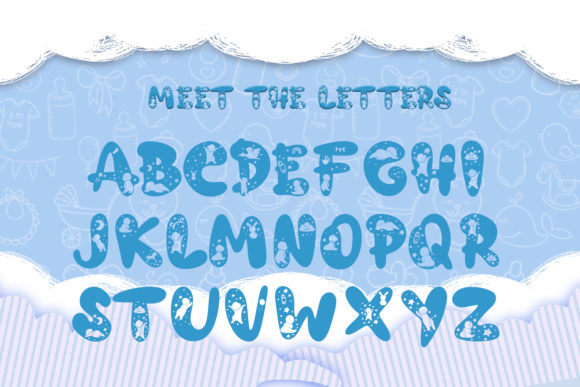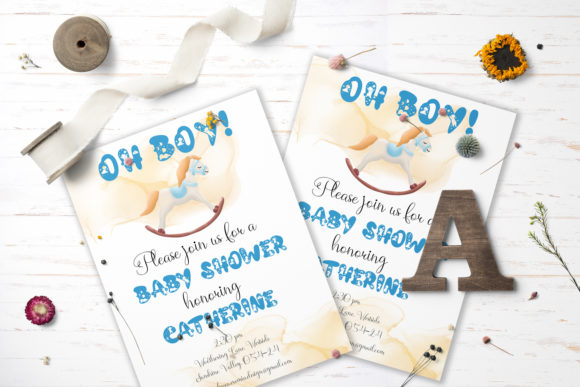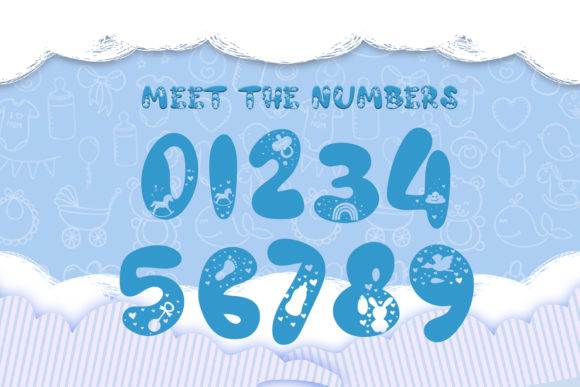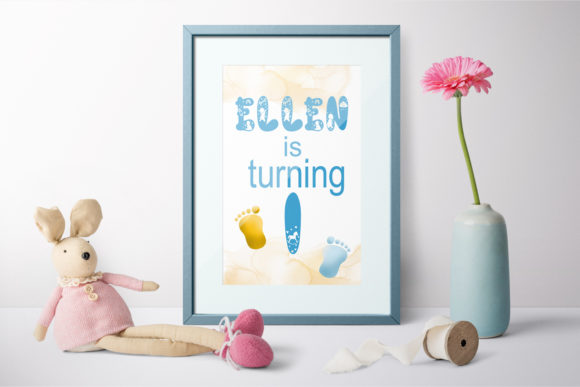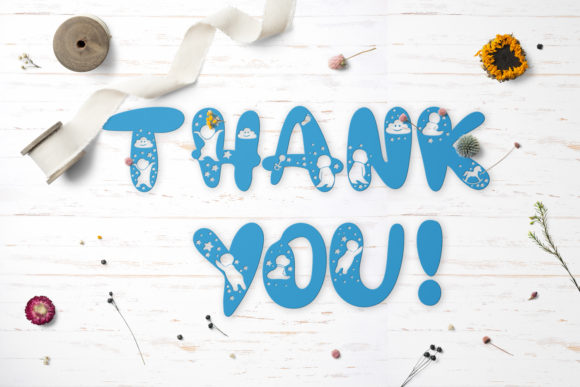
Baby Boy Font: The Perfect Addition to Your Children’s Design Projects
Are you a designer or crafter looking for a font that captures the playful and whimsical spirit of childhood? Look no further than the Baby Boy font! This quirky, sweet, and playful display font is perfect for children’s themed designs, especially when combined with bright colors.
What is Baby Boy Font?
Baby Boy font is a unique and eye-catching display font that is designed to bring a touch of playfulness and fun to your designs. Its quirky and sweet style makes it perfect for a variety of projects, from children’s party invitations and birthday cards to baby shower decorations and kids’ apparel.
Key Features of Baby Boy Font
- Playful and Whimsical: Baby Boy font has a playful and whimsical style that is sure to capture the attention of your audience.
- Quirky and Sweet: The font’s quirky and sweet style makes it perfect for children’s themed designs.
- Display Font: Baby Boy font is a display font, making it perfect for headlines, titles, and other display text.
- Easy to Read: Despite its playful style, Baby Boy font is easy to read, making it perfect for use in a variety of projects.
Uses for Baby Boy Font
Baby Boy font is perfect for a variety of projects, including:
- Children’s Party Invitations: Create fun and playful invitations for kids’ parties with Baby Boy font.
- Baby Shower Decorations: Use Baby Boy font to create cute and playful decorations for baby showers.
- Kids’ Apparel: Add a touch of playfulness to kids’ apparel, such as t-shirts and onesies, with Baby Boy font.
- Children’s Books: Use Baby Boy font to create engaging and interactive children’s books.
- Crafting Projects: Add a touch of whimsy to your crafting projects, such as scrapbooking and card making, with Baby Boy font.
Tips for Using Baby Boy Font
Here are a few tips for using Baby Boy font in your designs:
- Pair with Bright Colors: Baby Boy font looks best when paired with bright and bold colors.
- Use for Headlines and Titles: Use Baby Boy font for headlines and titles to add a touch of playfulness to your designs.
- Experiment with Different Sizes: Experiment with different sizes of Baby Boy font to create visual interest in your designs.
- Combine with Other Fonts: Combine Baby Boy font with other fonts to create a unique and eye-catching design.
In conclusion, Baby Boy font is a quirky, sweet, and playful display font that is perfect for children’s themed designs. Its playful and whimsical style makes it perfect for a variety of projects, from children’s party invitations and baby shower decorations to kids’ apparel and crafting projects. With its ease of use and versatility, Baby Boy font is a great addition to any designer’s or crafter’s font collection.